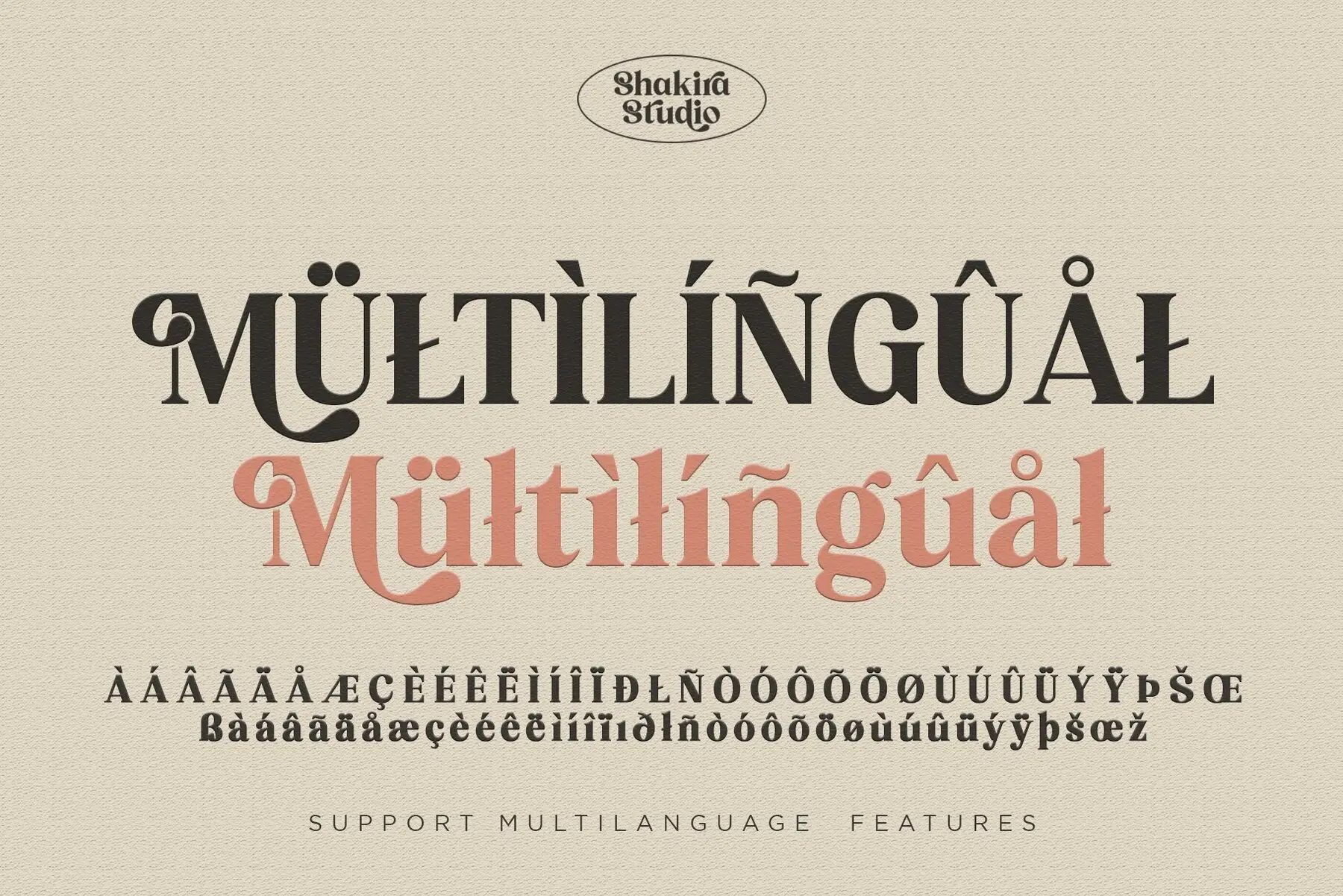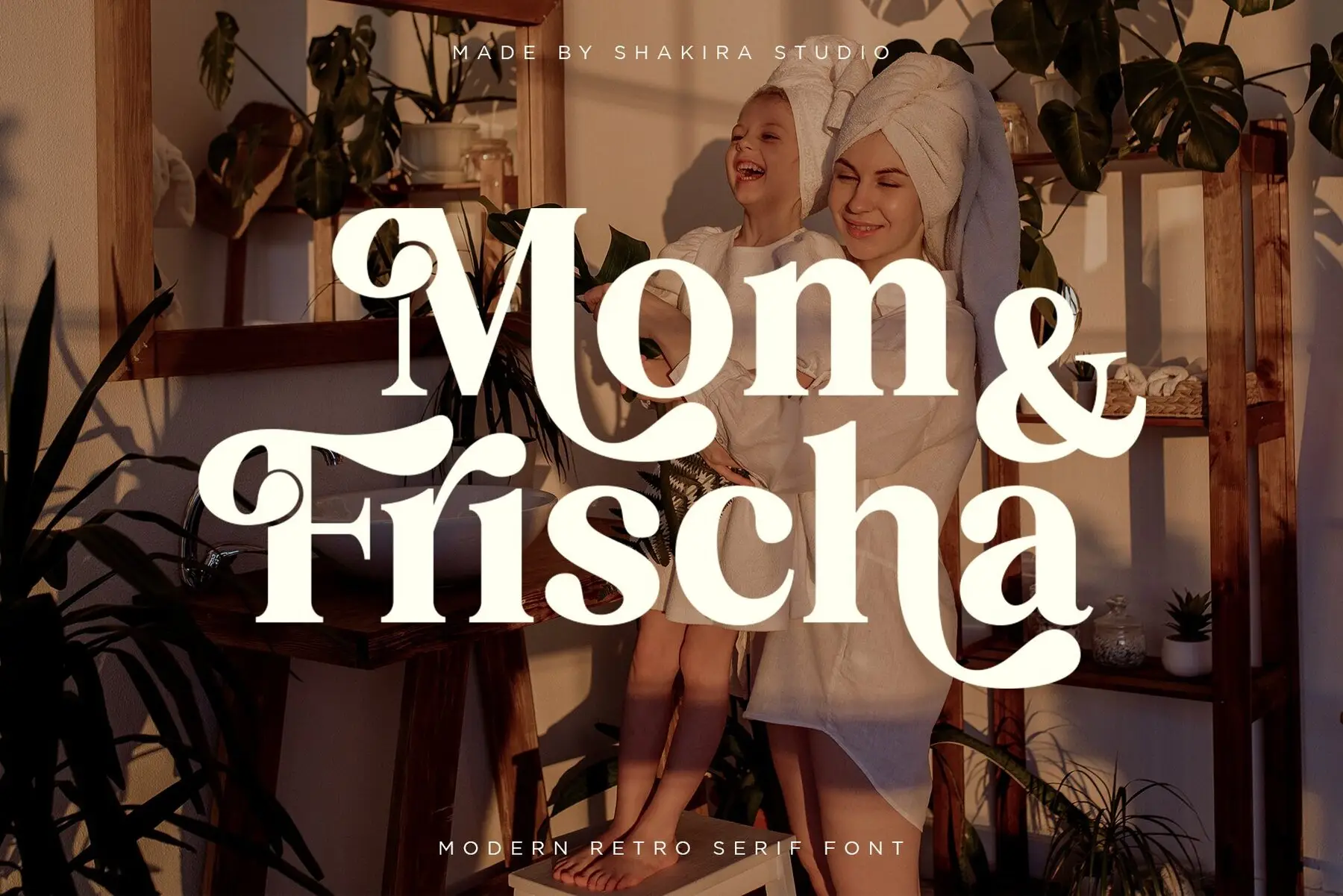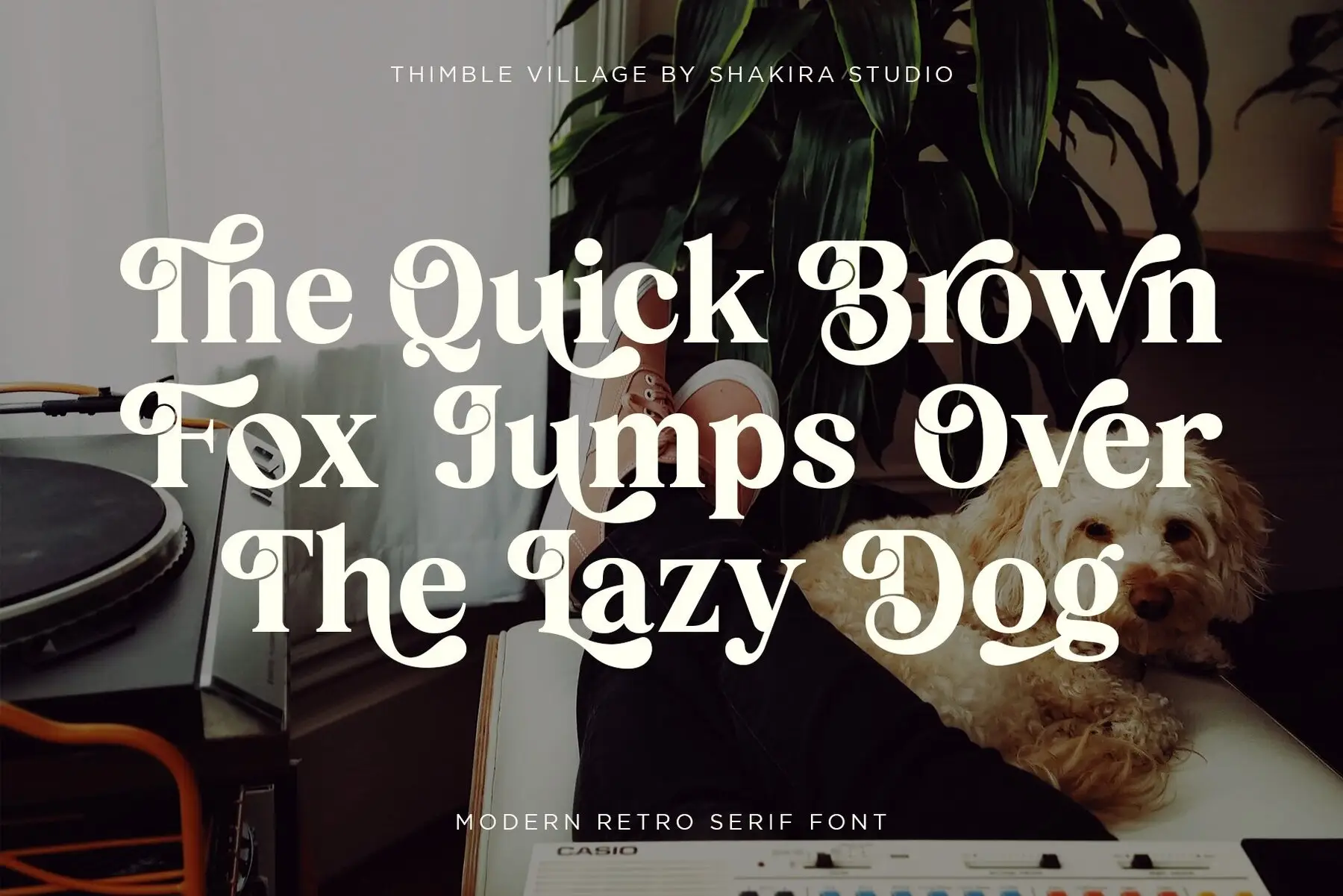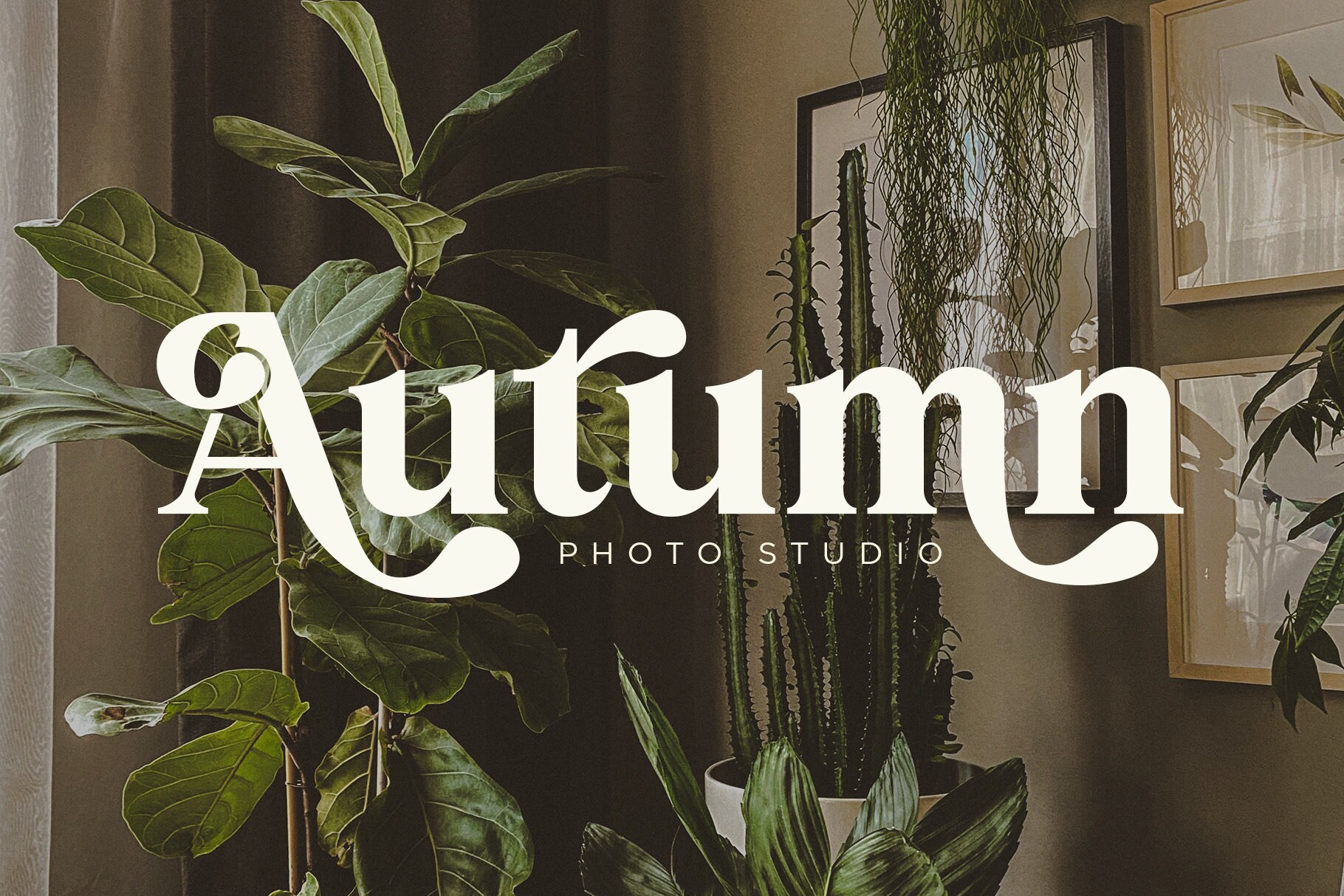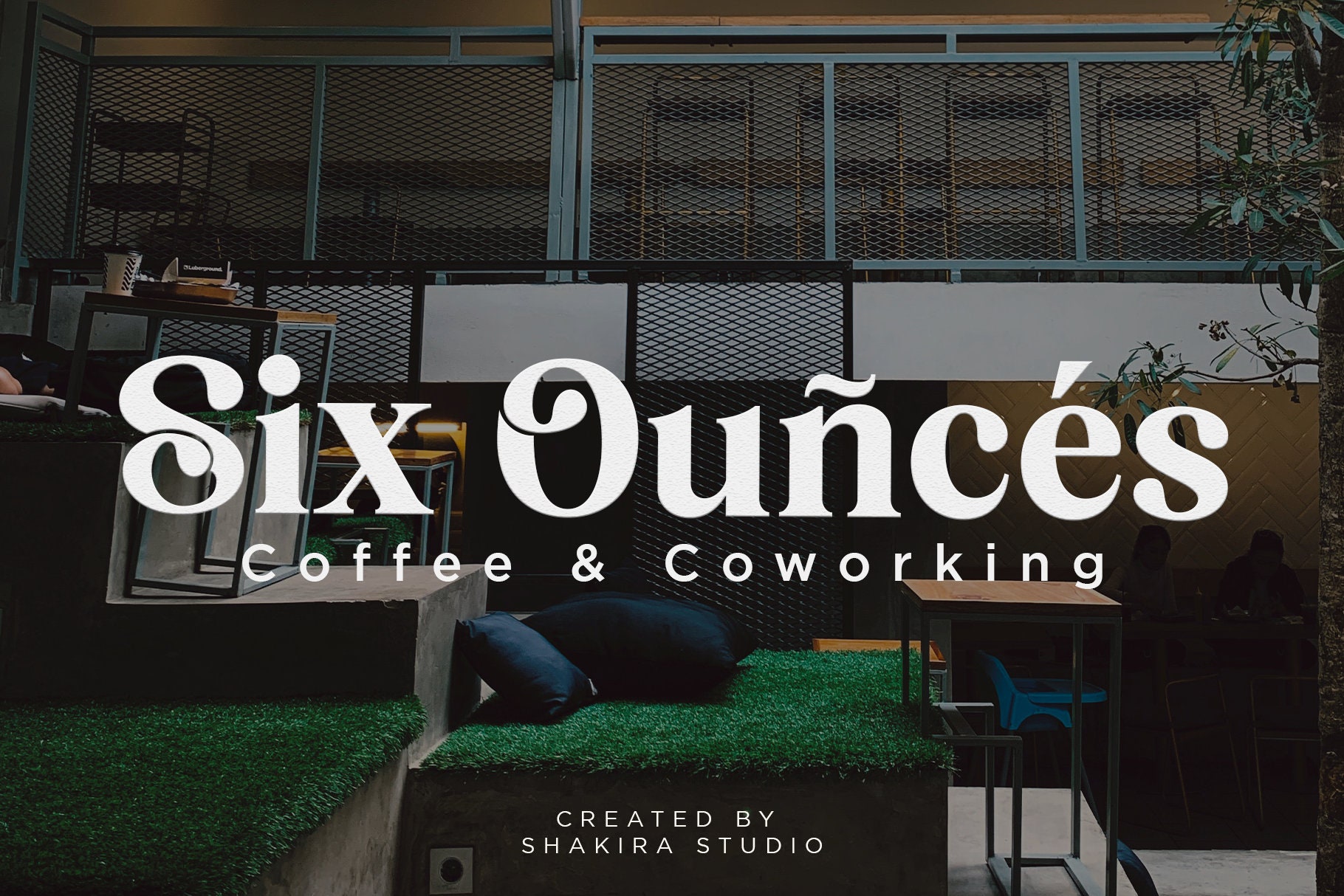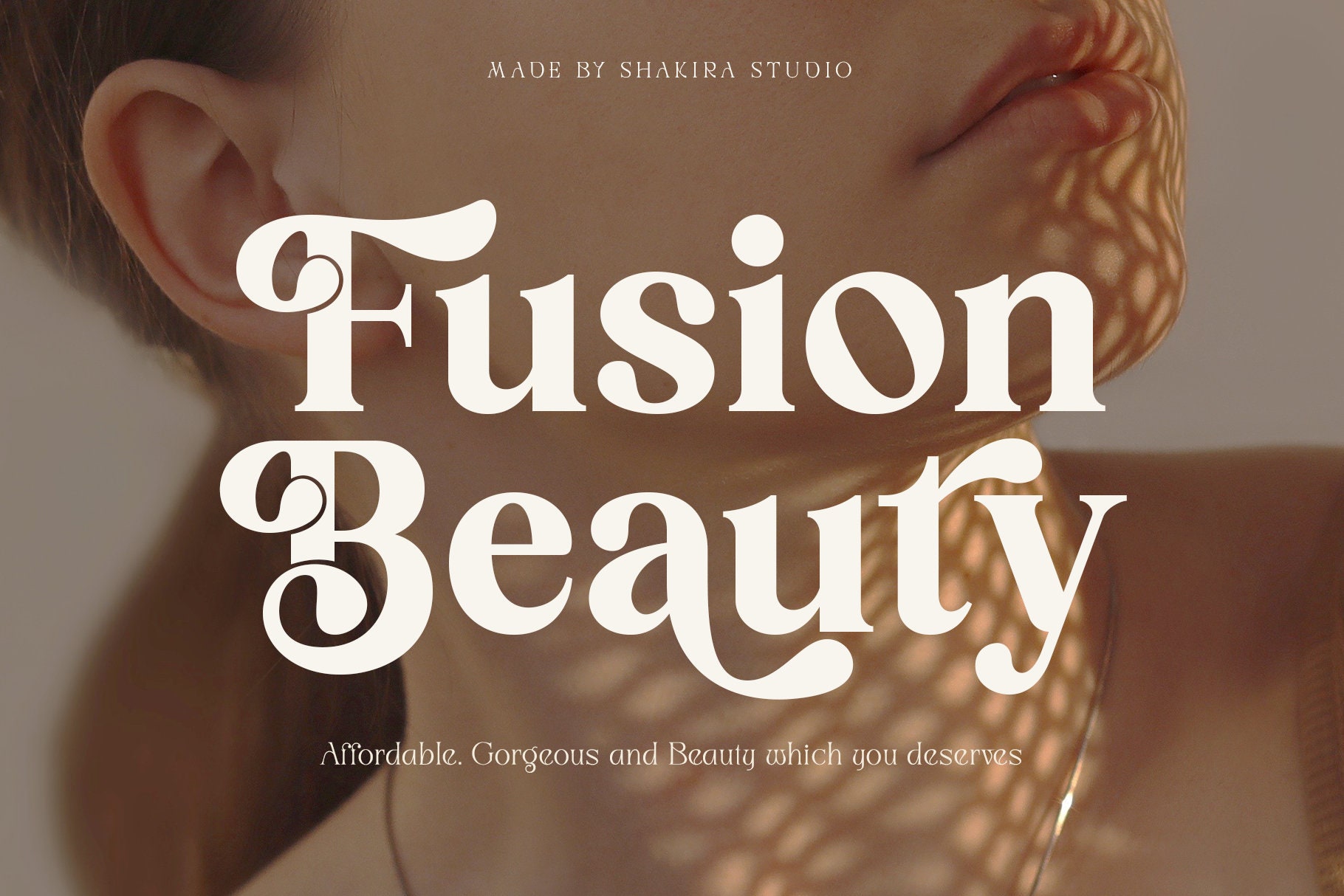
Thimble Village Font . Below you will find the font specimen for the thimble village font. Thimble village is suitable for any design project, such as posters, banners, logos, invitations, magazine covers,. This font features bold, thick strokes with a classic serif style. The thimble village font features a bold retro feel and high vibrancy. Thimble village contains 2 styles and family package options. Thimble village font family was designed by idhham cholid rikzano yahya and published by shakira studio. Featuring a full set of modern uppercase and lowercase letters, numerals, punctuation, multilingual symbols, and a range. In this font specimen you will. This serif font is created by shakira studio. Thimble village is suitable for any design project, such as posters, banners, logos, invitations, magazine covers,. The thimble village font features a bold retro feel and high vibrancy. Featuring a full set of modern uppercase and lowercase letters, numerals, punctuation, multilingual symbols, and a range.
The thimble village font features a bold retro feel and high vibrancy. This font features bold, thick strokes with a classic serif style. Thimble village is suitable for any design project, such as posters, banners, logos, invitations, magazine covers,. Thimble village font family was designed by idhham cholid rikzano yahya and published by shakira studio. This serif font is created by shakira studio. Thimble village contains 2 styles and family package options. In this font specimen you will. Featuring a full set of modern uppercase and lowercase letters, numerals, punctuation, multilingual symbols, and a range. Thimble village is suitable for any design project, such as posters, banners, logos, invitations, magazine covers,. The thimble village font features a bold retro feel and high vibrancy.
Thimble Village Font Thimble village is suitable for any design project, such as posters, banners, logos, invitations, magazine covers,. Thimble village contains 2 styles and family package options. The thimble village font features a bold retro feel and high vibrancy. Featuring a full set of modern uppercase and lowercase letters, numerals, punctuation, multilingual symbols, and a range. Thimble village font family was designed by idhham cholid rikzano yahya and published by shakira studio. Below you will find the font specimen for the thimble village font. Thimble village is suitable for any design project, such as posters, banners, logos, invitations, magazine covers,. In this font specimen you will. The thimble village font features a bold retro feel and high vibrancy. Thimble village is suitable for any design project, such as posters, banners, logos, invitations, magazine covers,. This font features bold, thick strokes with a classic serif style. Featuring a full set of modern uppercase and lowercase letters, numerals, punctuation, multilingual symbols, and a range. This serif font is created by shakira studio.
Village free Font What Font Is Thimble Village Font Thimble village is suitable for any design project, such as posters, banners, logos, invitations, magazine covers,. This serif font is created by shakira studio. Featuring a full set of modern uppercase and lowercase letters, numerals, punctuation, multilingual symbols, and a range. Below you will find the font specimen for the thimble village font. Thimble village font family was designed by. Thimble Village Font.
Village Font by Sansana · Creative Fabrica Thimble Village Font Thimble village font family was designed by idhham cholid rikzano yahya and published by shakira studio. Thimble village is suitable for any design project, such as posters, banners, logos, invitations, magazine covers,. Featuring a full set of modern uppercase and lowercase letters, numerals, punctuation, multilingual symbols, and a range. Thimble village is suitable for any design project, such as posters,. Thimble Village Font.
Village Font Free Download Thimble Village Font Below you will find the font specimen for the thimble village font. Featuring a full set of modern uppercase and lowercase letters, numerals, punctuation, multilingual symbols, and a range. The thimble village font features a bold retro feel and high vibrancy. Thimble village font family was designed by idhham cholid rikzano yahya and published by shakira studio. Thimble village is. Thimble Village Font.
Thimble village retro serif font elegant font canva font modern font Thimble Village Font This font features bold, thick strokes with a classic serif style. Below you will find the font specimen for the thimble village font. The thimble village font features a bold retro feel and high vibrancy. This serif font is created by shakira studio. Thimble village is suitable for any design project, such as posters, banners, logos, invitations, magazine covers,. In. Thimble Village Font.
Village Font by william jhordy · Creative Fabrica Thimble Village Font Featuring a full set of modern uppercase and lowercase letters, numerals, punctuation, multilingual symbols, and a range. This font features bold, thick strokes with a classic serif style. The thimble village font features a bold retro feel and high vibrancy. Thimble village is suitable for any design project, such as posters, banners, logos, invitations, magazine covers,. Thimble village is suitable. Thimble Village Font.
Village Font Thimble Village Font This font features bold, thick strokes with a classic serif style. Thimble village font family was designed by idhham cholid rikzano yahya and published by shakira studio. Below you will find the font specimen for the thimble village font. The thimble village font features a bold retro feel and high vibrancy. This serif font is created by shakira studio. Thimble. Thimble Village Font.
Thimble Village Font Below you will find the font specimen for the thimble village font. The thimble village font features a bold retro feel and high vibrancy. Thimble village is suitable for any design project, such as posters, banners, logos, invitations, magazine covers,. Thimble village contains 2 styles and family package options. This font features bold, thick strokes with a classic serif style.. Thimble Village Font.
Village Font OutsideInside Fonts FontSpace Thimble Village Font Thimble village contains 2 styles and family package options. Below you will find the font specimen for the thimble village font. This serif font is created by shakira studio. Thimble village is suitable for any design project, such as posters, banners, logos, invitations, magazine covers,. Thimble village font family was designed by idhham cholid rikzano yahya and published by shakira. Thimble Village Font.
Village free Font What Font Is Thimble Village Font The thimble village font features a bold retro feel and high vibrancy. Featuring a full set of modern uppercase and lowercase letters, numerals, punctuation, multilingual symbols, and a range. Thimble village is suitable for any design project, such as posters, banners, logos, invitations, magazine covers,. This serif font is created by shakira studio. Thimble village is suitable for any design. Thimble Village Font.